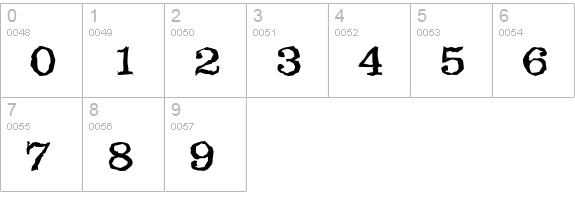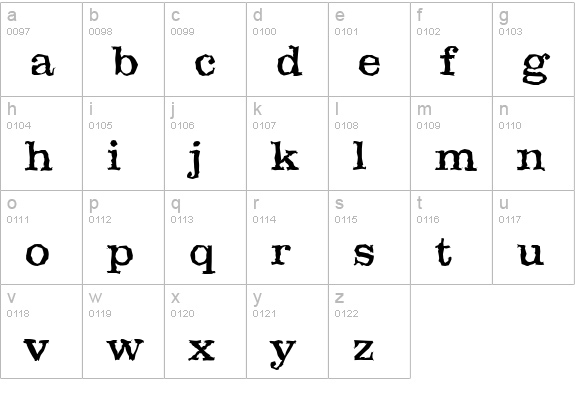
ClareRandom Font Details
ClareRandom font is a unique and stylish typeface that adds a touch of creativity to any design project. Its playful and irregular letterforms make it stand out from the crowd, perfect for adding a fun and whimsical touch to your designs. This font is freely available to download at FontsMarket.com, allowing you to easily incorporate its charm into your projects without any hassle. ClareRandom is versatile and eye-catching, making it a great choice for a wide range of design applications. Add a touch of personality to your designs with ClareRandom font today!